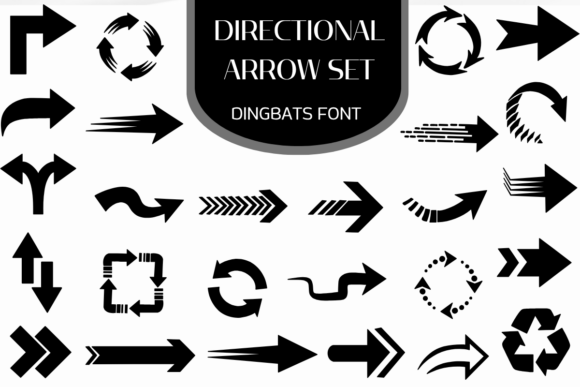
Unlock Your Creativity with Directional Arrow Set Font
Have you ever been brainstorming a new project and suddenly, the ideas start flowing? You grab a notebook and pen, and before you know it, you’ve got a mess of scribbles and arrows everywhere. That’s the magic of creative freedom, and it’s exactly what the Directional Arrow Set Font is all about.
This dingbats font is more than just a quirky addition to your design arsenal. It’s a versatile tool that can be used for a wide range of projects, from taking notes and writing a diary to making greeting cards and designing banners. Whether you’re a seasoned designer or just starting out, the Directional Arrow Set Font is a valuable addition to your toolkit.
Directional Arrow Set Font Key Features
- Font Family: A unique set of directional arrow fonts, ideal for creating visual representations of directions and navigation.
- Character Count: Each font set includes a comprehensive range of directional arrow characters, including upwards, downwards, leftwards, rightwards, and diagonals.
- Unique Characteristics: Customizable arrow styles and lengths, enabling designers to create visually appealing and intuitive directional cues.
Designer Review: Directional Arrow Set Font
Overall, the Directional Arrow Set Font is a decent addition to any font collection. Here are some aspects where it shines ✨:
- Extensive arrow set: The font offers a wide variety of arrow types, making it perfect for projects that require multiple directional indicators.
- Clean and simple design: The font’s minimalist approach ensures that it won’t distract from the content, and its simplicity makes it easy to read.
- Customizability: Users can easily adjust the size, color, and style of the arrows to match their project’s requirements.
However, there are some limitations to consider ⚠️:
- Limited character set: The font’s character set is limited to arrows and doesn’t include any other characters or symbols.
- Lack of variation: While the font offers various arrow types, it doesn’t have a lot of variation in terms of style or design.
- Not ideal for body text: Due to its simplicity, the font is not suitable for large blocks of body text and may not be the best choice for reading-heavy projects.
Overall, the Directional Arrow Set Font is a solid choice for projects that require directional indicators, but it’s not a one-size-fits-all solution. With some creative use and adjustments, it can be a valuable addition to any font collection.
Use the Directional Arrow Set Font to create visually appealing and engaging graphics.
Combine the font with other design elements, such as icons and images, to create a cohesive look.
Experiment with different font sizes, colors, and styles to create a unique design.
Directional Arrow Set Font is commonly used in:
Infographics
Presentations
Marketing materials
Web design